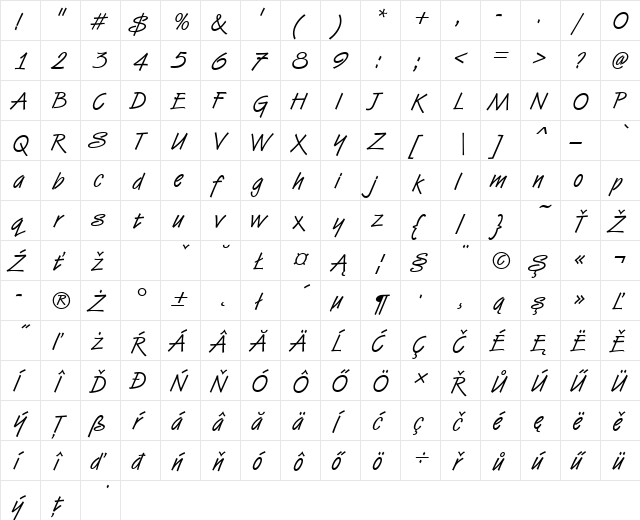
VanDijkDEE Regular
Design Context for VanDijkDEE Typeface
VanDijkDEE offers clean, dependable letterforms without strong stylistic allegiance, making it a practical choice for designers who need flexibility.